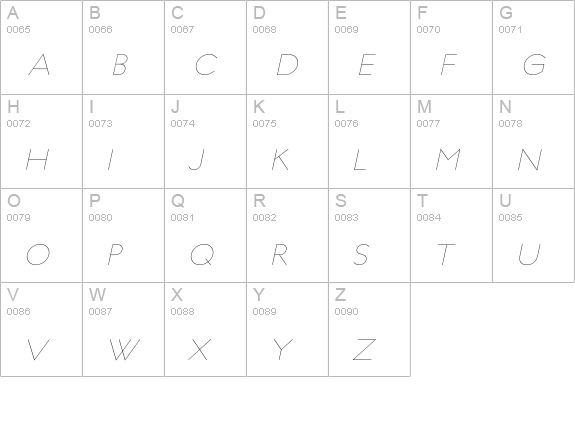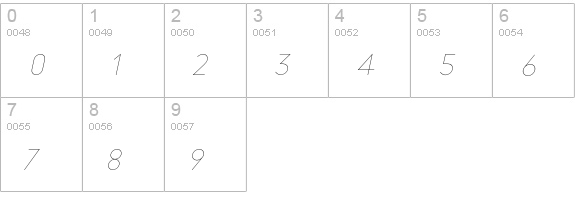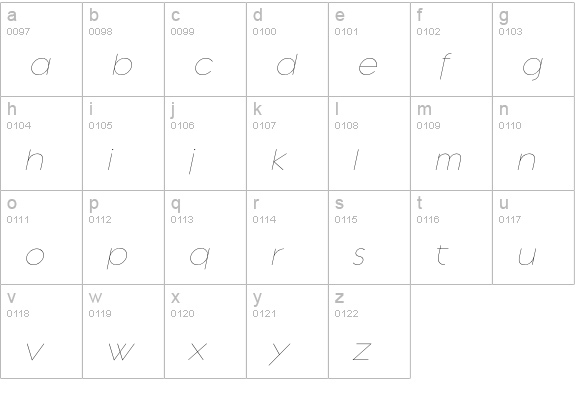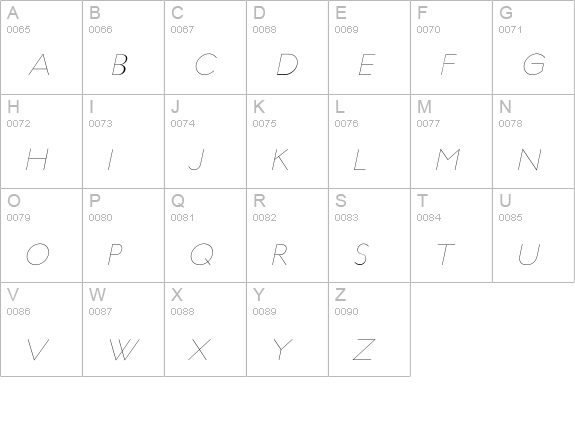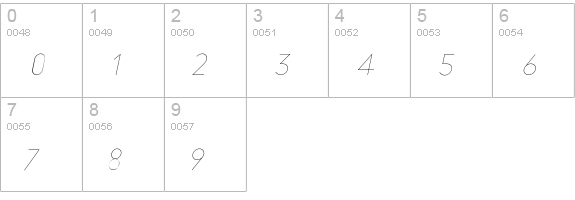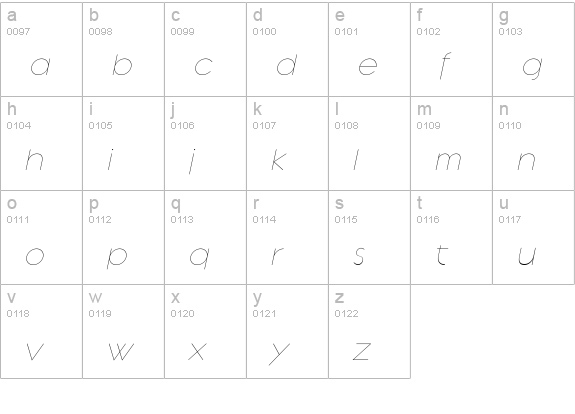
Regulator-ThinItalic Font Details
Regulator-ThinItalic font is a sleek and elegant typeface that exudes sophistication and refinement. Its thin and slanted design adds a touch of modernity to any project, making it perfect for both professional and creative purposes. The italic style of this font brings a sense of movement and dynamism, creating a visually captivating experience for the reader. This font is a versatile choice that can be used in a variety of contexts, from branding and logo design to editorial layouts and web design. Its clean and legible letterforms ensure optimal readability, even at small sizes. Regulator-ThinItalic adds a subtle touch of personality to any text, allowing it to stand out without overpowering the overall design. One of the best things about Regulator-ThinItalic font is that it is freely available to download at FontsMarket.com. This means that you can easily access and incorporate this stunning font into your projects without any cost. Whether you're a professional designer or a hobbyist, having access to a high-quality font like Regulator-ThinItalic can greatly enhance your creative endeavors. With its thin and italicized style, Regulator-ThinItalic font effortlessly adds a touch of elegance and sophistication to any design. Its versatility and legibility make it a reliable choice for various projects, while its availability as a free download at FontsMarket.com ensures that it is accessible to everyone. So why wait? Download Regulator-ThinItalic font today and elevate your designs to new heights.